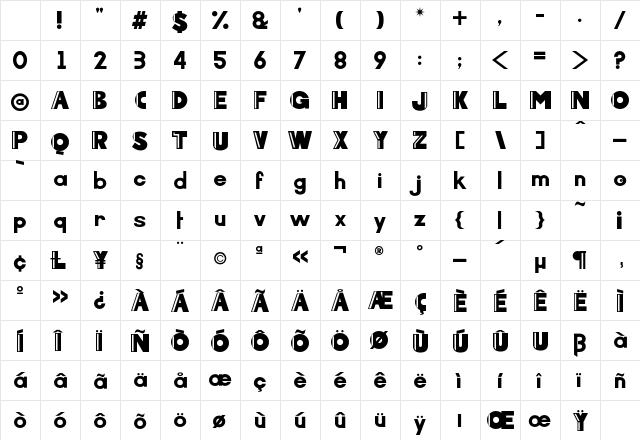
Arcoverde Regular Free Font
Arcoverde Regular
Design Context for Arcoverde
Arcoverde is a composed and adaptable typeface that performs quietly and consistently across a wide range of design contexts.